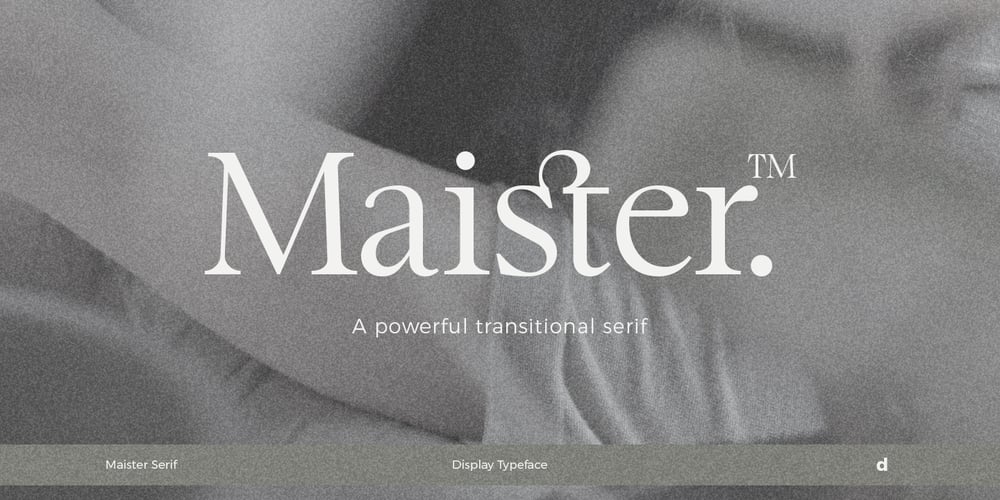
Maister Font Family was designed by Zahratul Laila and published by Dora Typefoundry. Maister contains 1 styles and family package options. Maister is a contemporary look serif typeface with sharp and dynamic strokes, strong contrasts that are subtle. Giving traditional serif design elements a modern feel, this is a graceful and confident set of timeless simple, easy-to-read typefaces that can easily become a staple in your font library perfect for branding, logos, invitations, magazines, product packaging, and more.Features: All Caps Font with different uppercase and lowercase Number & Symbol Supported Languages Alternates and Ligatures PUA Encoded We highly recommend using a program that supports OpenType features and Glyphs panels like Adobe apps and Corel Draw, so you can see and access all Glyph variations.This type of family has become the work of true love, making it as easy and fun as possible.I really hope you enjoy it!Thank you Enjoy the font and go get creative ๐